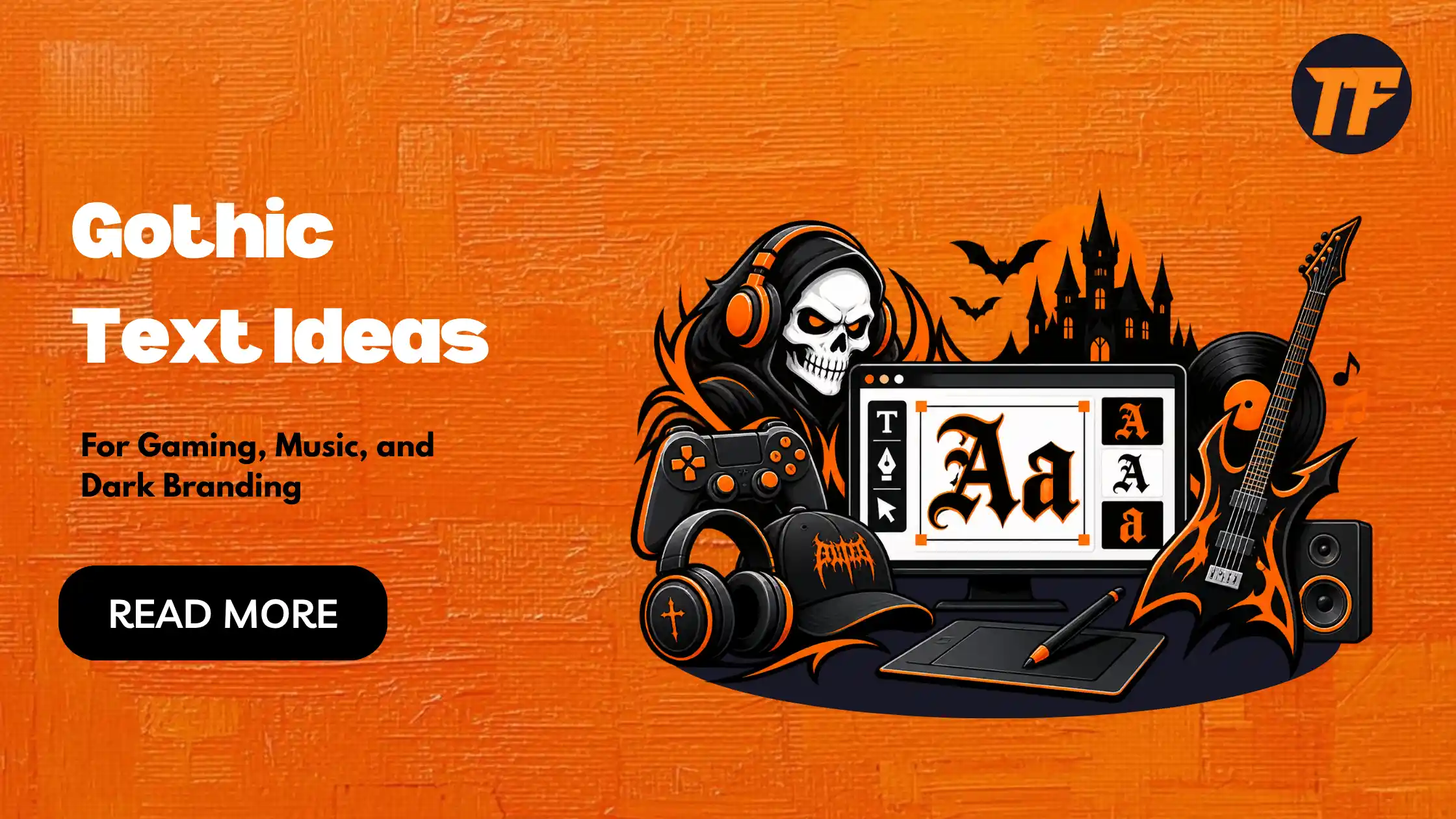
Gothic text is known for its bold, dramatic, and old-world appearance. Today, it is used for more than historical designs. Gamers use gothic text for usernames, clan names, and Discord servers, while musicians use it for band names, album titles, and artist branding.
Businesses can also use gothic styles for fashion labels, tattoo studios, streetwear, and other dark-themed brands.
Choosing the right style can help your text match the mood and purpose of your project. In this article, you will find gothic text ideas for gaming, music, and dark branding.
Gaming communities use gothic text for usernames, clan tags, server names, and in-game titles. It signals commitment to a theme, whether that's dark fantasy, horror, or medieval strategy, and it makes a profile or tag stand out in a crowded lobby or server list.
These names are built for players who want their character or profile to feel pulled straight out of an epic fantasy world.
They work especially well for RPG avatars, MMO profiles, and fantasy-themed Discord servers where the goal is to sound powerful, battle-hardened, and mythic. Pair them with a matching guild or clan for extra impact.
Discord names need to hit hard in very little space, since servers cap nicknames at 32 characters and clan tags often appear next to usernames in chat.
These ideas stay short and punchy while still carrying a dark, commanding tone, making them easy to pair with a sword, skull, or moon emoji for extra atmosphere.
Horror and survival games thrive on dread and atmosphere, and your username should match that tension.
These aliases borrow the bleak, unsettling tone found in Dark Souls-style titles and survival-horror communities, where a name needs to feel ominous rather than heroic. They work well for both solo profiles and horror-themed clans.
Some games blend futuristic technology with gothic dread, and this category is built for exactly that crossover.
These names combine cold, mechanical language with dark, ritualistic tones, making them a strong fit for cyberpunk-horror titles, dystopian RPGs, or any profile that wants to feel both ancient and artificial at once.
Beyond individual usernames, gothic text also works well for naming entire guilds, kingdoms, or campaign arcs in tabletop and MMO settings. These titles are meant to sound grand and world-building, giving a sense of history and stakes before a single quest even begins. They also read well on banners and loading screens.
In music, gothic text carries decades of association with metal, rock, and darker subgenres. Bands, solo artists, and producers use it in band names, album titles, bios, and merch to reinforce a visual identity that matches the sound.
A band name is often the first thing people see before they hear a single track, so it needs to carry the same intensity as the music itself.
These ideas are built for metal, rock, and darker subgenres, designed to look striking on a logo, poster, or album cover while still sounding memorable when said aloud.
An album title works as a visual and emotional preview of the record before anyone presses play. These titles are written to stand on their own as strong cover art statements, carrying weight and mood in just a few words.
They suit metal, gothic rock, and darker alternative releases especially well.
Solo artists and DJs often need a name that feels more personal and distinct than a full band name. These ideas lean shorter and moodier, making them easy to remember and easy to brand across streaming platforms, merch, and social profiles, while still carrying the same dark, atmospheric tone as the music itself.
A strong bio line does a lot of work in a small space, setting the tone for an artist's entire page before someone even hits play. These short, quotable lines are meant for Instagram bios, Spotify profiles, or post captions, giving fans an immediate sense of the mood and identity behind the music.
Most modern platforms support it, but some older apps or strict character fields may show fallback boxes. If a name reverts to plain text, try a cleaner gothic variant first.